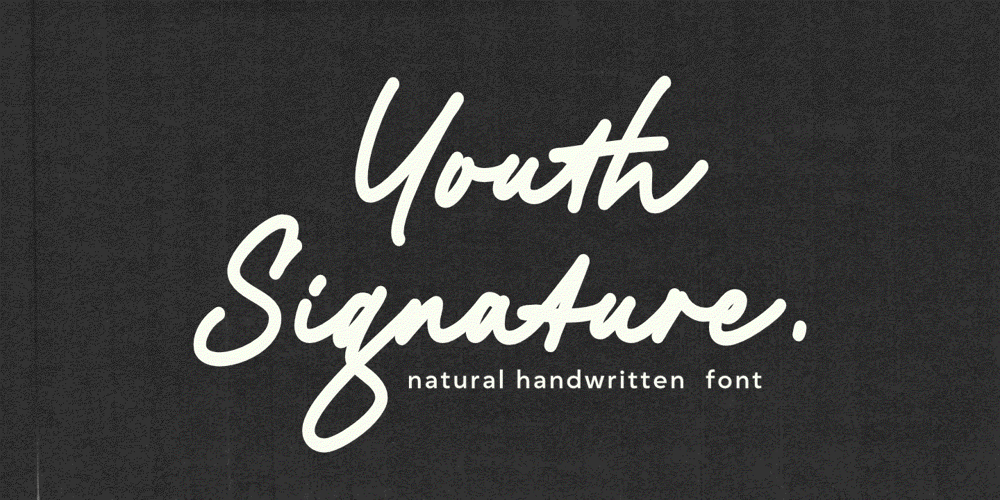
Youth Signature Font Family was designed by Muhammad Ridha Agusni, Siti Saribanon Nurjannah and published by Cititype. Youth Signature contains 1 styles and family package options. Introducing Youth Signature, a Script Font that exudes confidence and elegance. With a natural flow reminiscent of a strong, bold pen stroke, this font captures attention with its eye-catching design. Youth Signature is a unique typeface, making it a great choice for those looking to create a distinct and memorable identity. Perfect for modern brands, it brings a stylish, personal touch to logotypes, ensuring your brand stands out with sophistication and boldness. Ideal for branding, packaging, and promotional designs